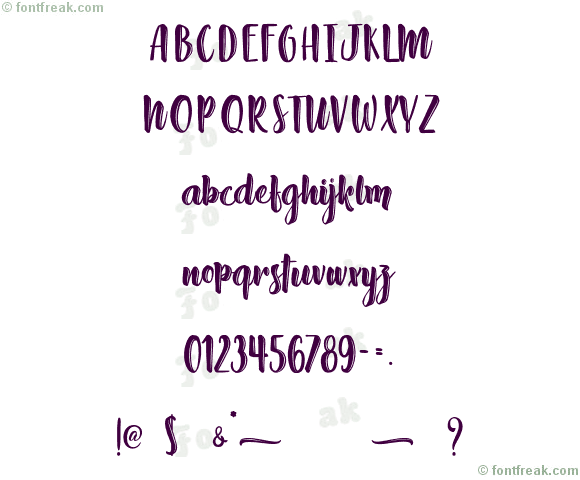
Absolute Pink - Personal Use
Absolute Pink - Personal Use by Suthi Srisopha is an enchanting handwritten font that captures the essence of playful elegance. This font features a unique script style with fluid, flowing letterforms that effortlessly dance across the page, making it perfect for a variety of creative applications. Characterized by its moderate stroke weight and gentle contrast, the letters exhibit a warm, inviting aesthetic that is both modern and timeless. The generous spacing between characters enhances readability while also contributing to its airy, light-hearted feel.
Ideal for wedding invitations, Absolute Pink adds a romantic touch with its whimsical curves, making each invite feel truly special. It also shines in greeting cards, where its friendly demeanor conveys heartfelt messages. For small business owners, this font can elevate branding efforts, particularly for cafes or boutiques seeking a casual yet sophisticated look. Additionally, Absolute Pink is a charming choice for social media graphics, helping content creators capture attention with its distinctive flair.
The target audience for this font includes graphic designers looking to infuse their projects with a personal touch, as well as small business owners eager to establish a unique brand identity. Content creators will also find this font invaluable for creating engaging visual content that resonates with their audience.